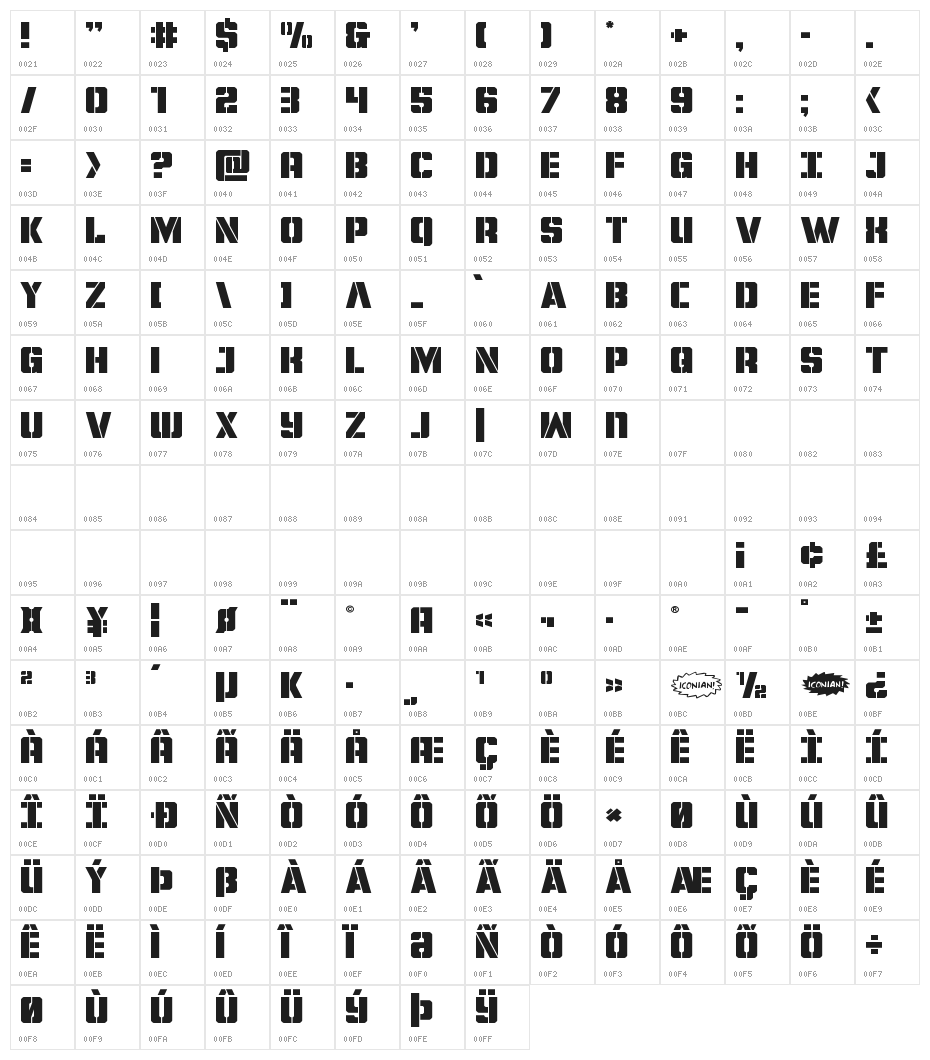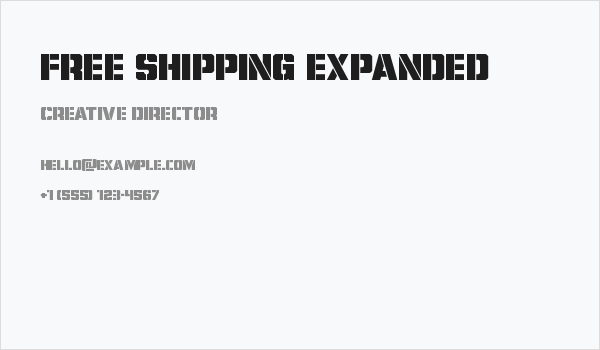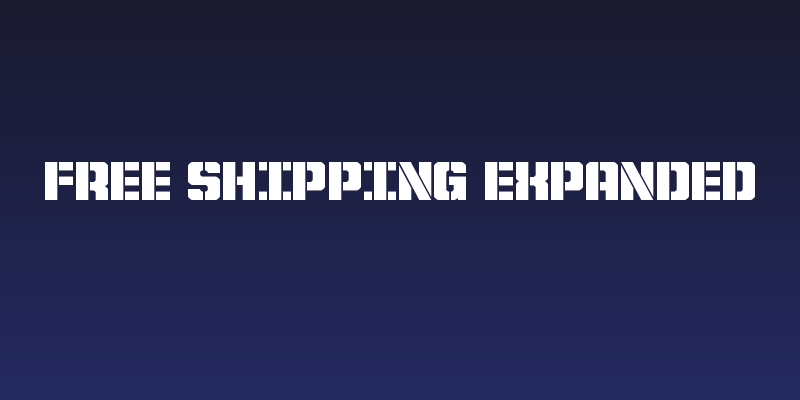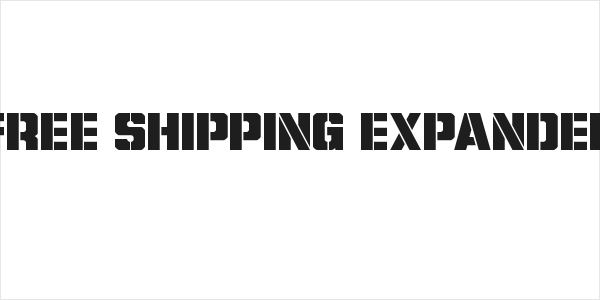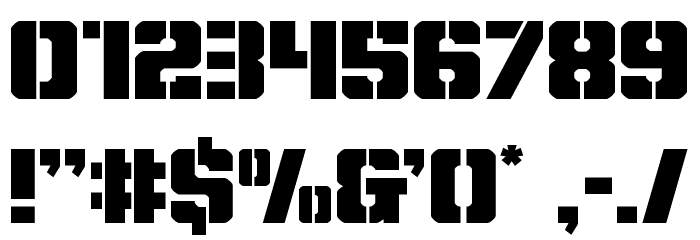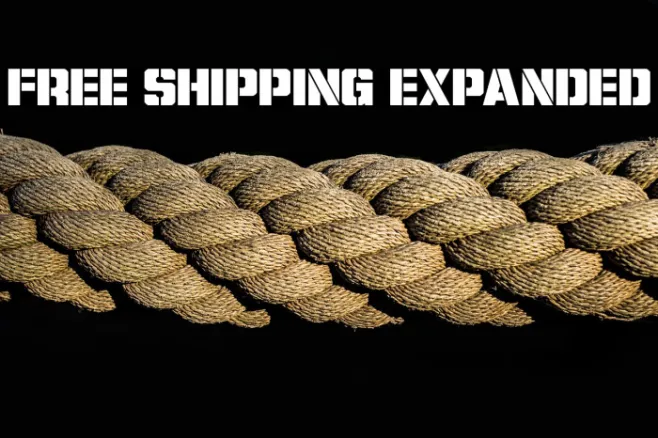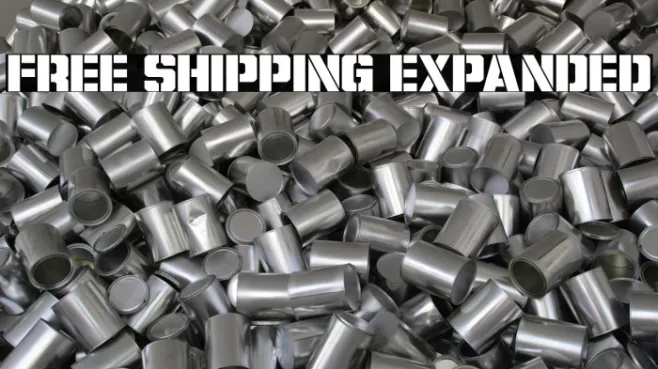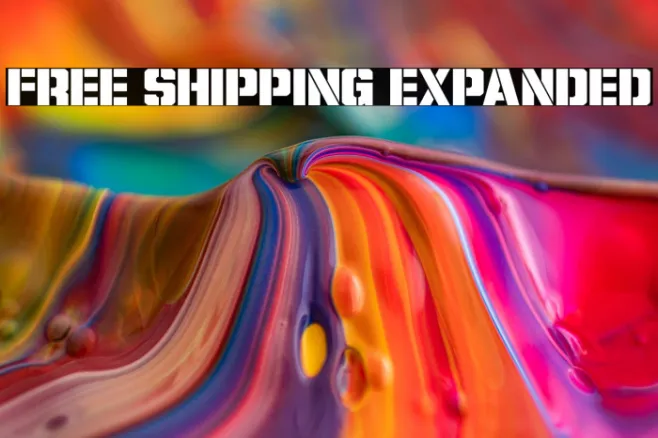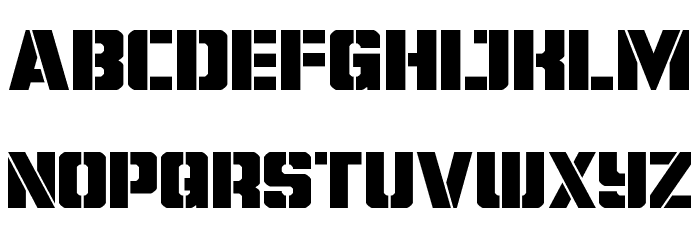
Free Shipping Expanded Font
Free Shipping Expanded Description
This font features a bold, geometric design with a distinct stencil-like appearance. The characters are constructed with solid, blocky shapes, creating a strong and impactful visual presence. The uppercase and lowercase letters maintain a consistent style, with angular cuts and sharp edges that enhance the industrial and modern aesthetic. The numerals and special characters follow the same design principles, ensuring uniformity across the entire typeface. This font's unique style makes it ideal for projects that require a bold statement or a contemporary, edgy look.
| Proposed Projects | Ideal for branding, posters, signage, and any project requiring a strong, modern aesthetic. |